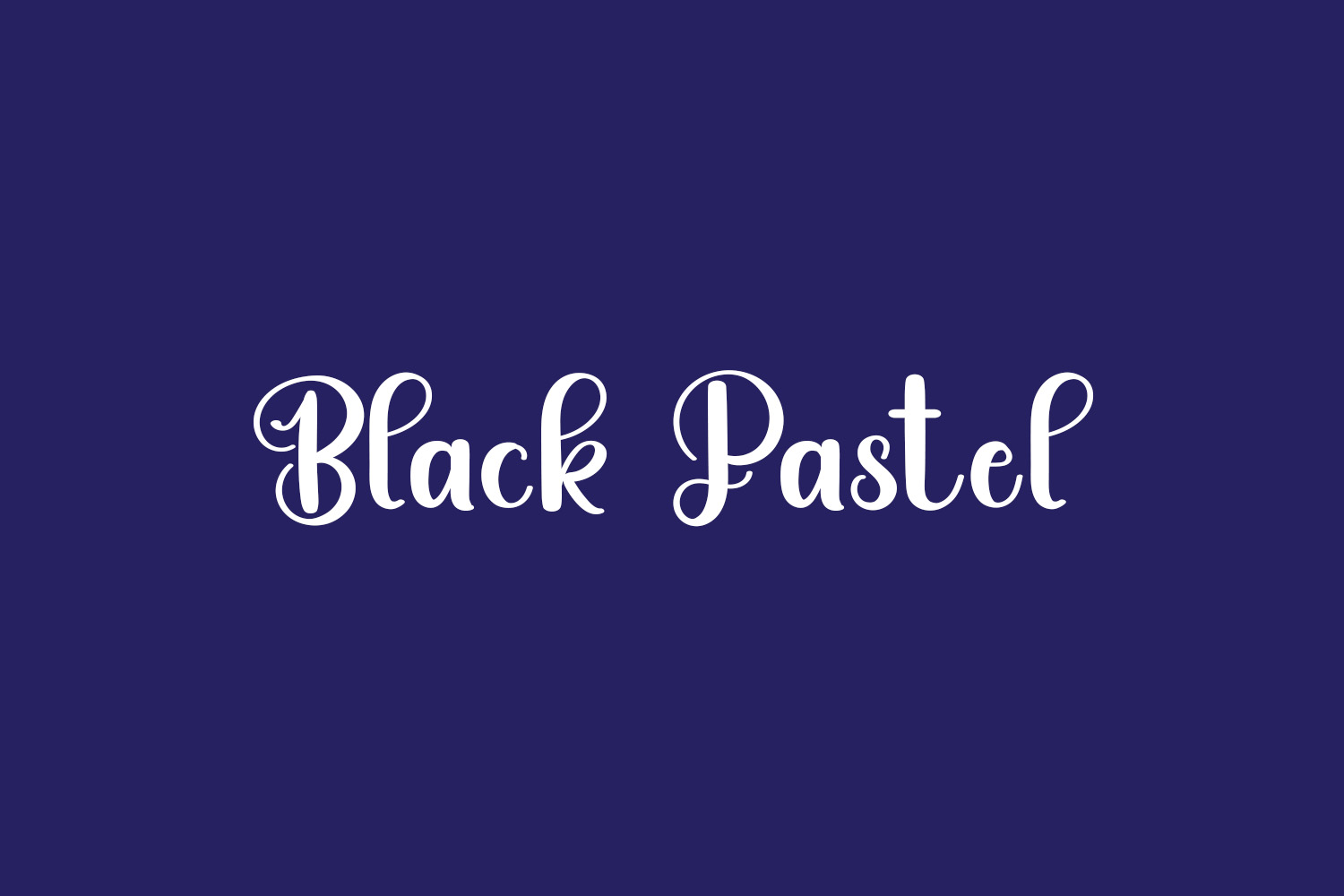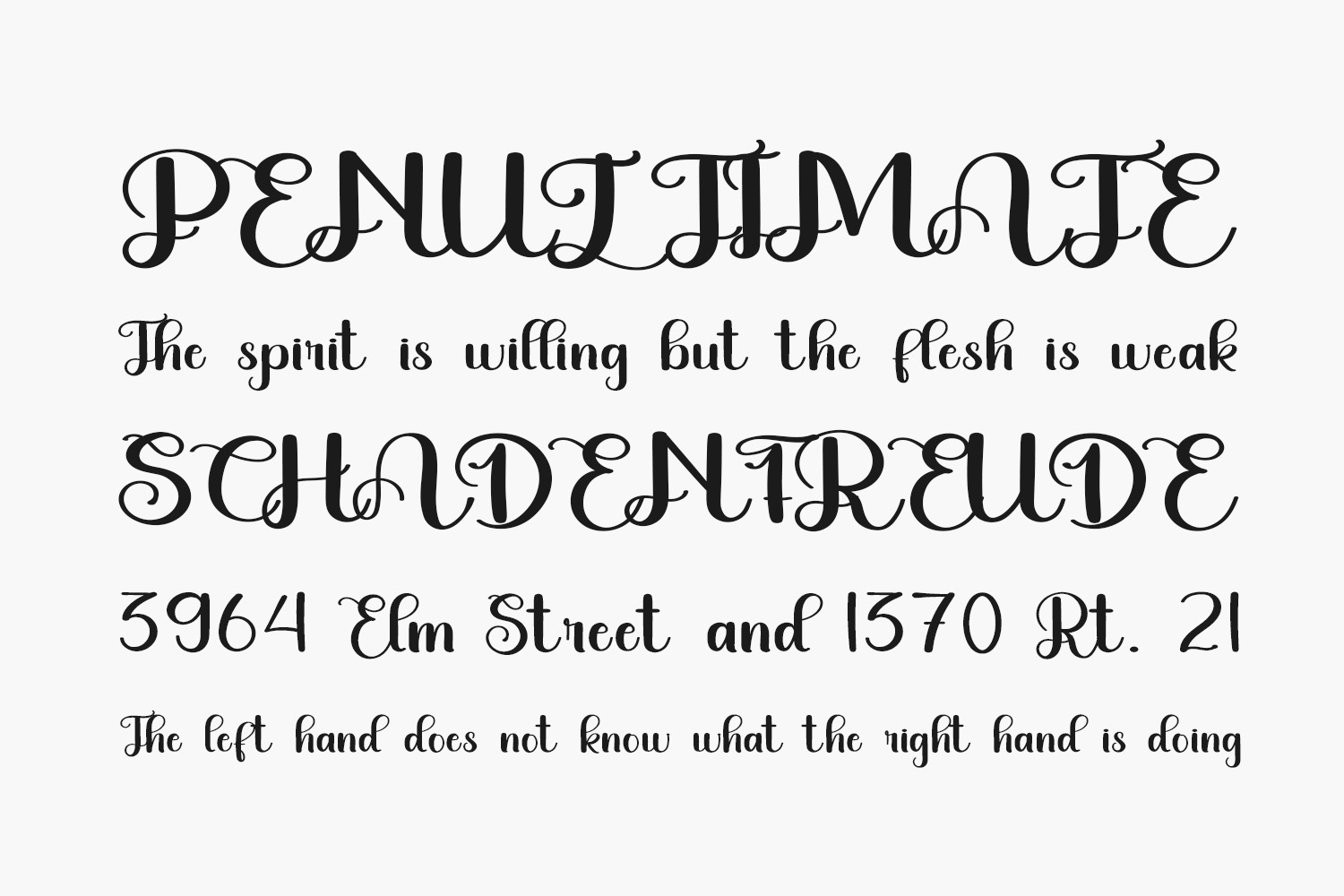
Experience the elegance of Black Pastel Free Font, a sophisticated and gentle script font. With its harmonious and exquisite characters, this font effortlessly complements a diverse range of design projects. Infuse it into your boldest creative concepts and witness the vibrant transformation it brings to life! Unlock the potential of Black Pastel and watch your ideas flourish. Black Pastel Free Font is free for personal use only. Please purchase the full version for commercial use.
Designed by Inermedia Studio